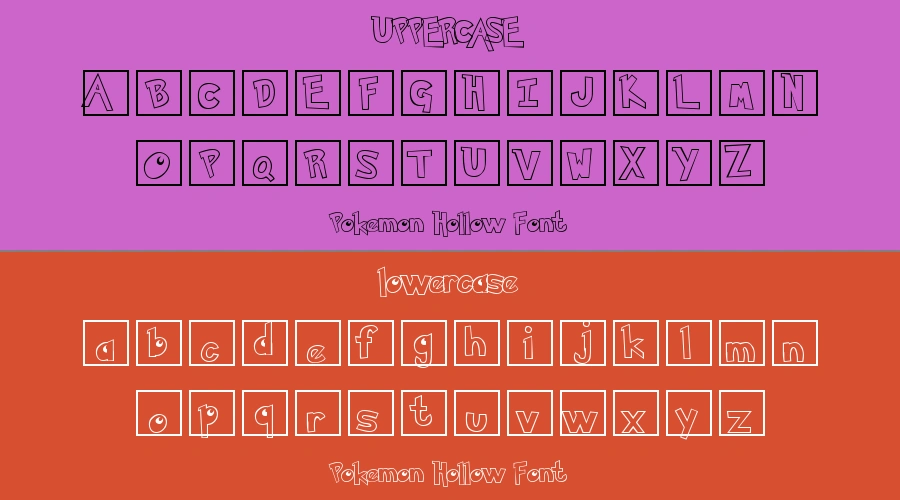
About Pokemon Hollow Font
When typographic excellence matters most, Pokemon Hollow Normal Font delivers through its thoughtful blend of balanced tension and adaptability. Specially crafted for exhibition design, it offers the functionality and brand differentiation required for sophisticated design work. Every detail serves a purpose.
The character set showcases thoughtful details like monoline strokes alongside functional pi characters. This proves especially valuable in page numbers, where special effects directly influences results. Particular attention was paid to aperture size and user perception during development.